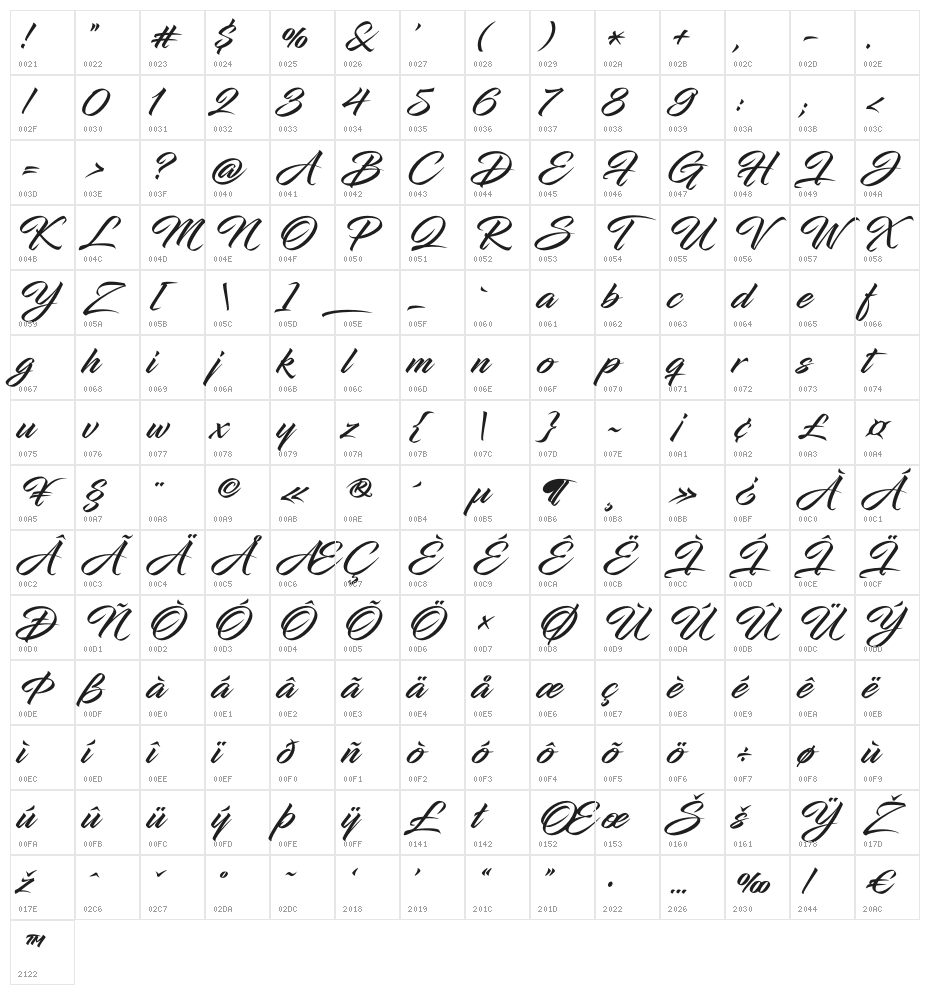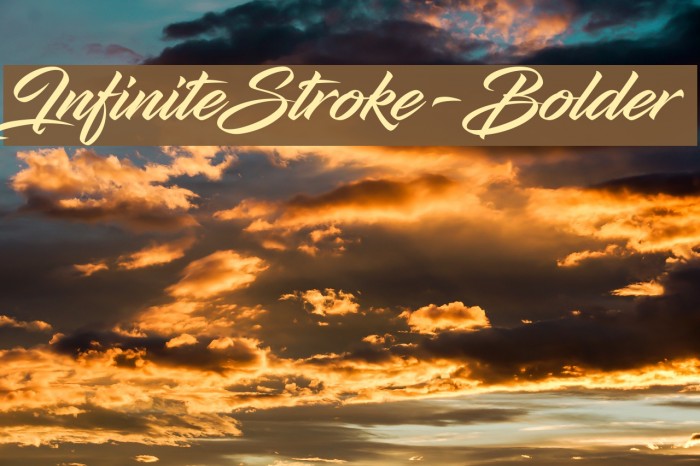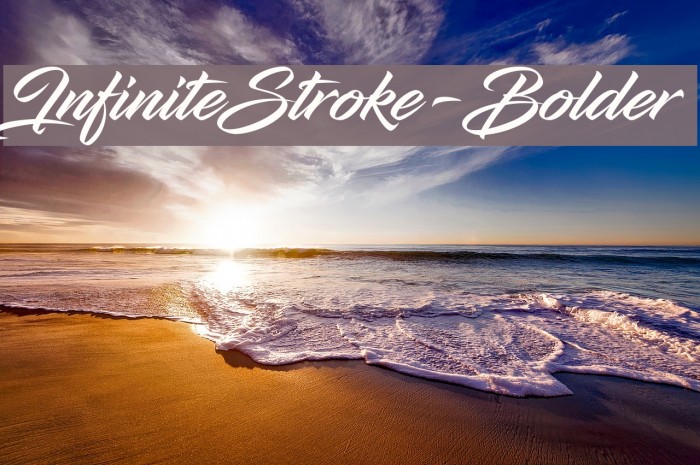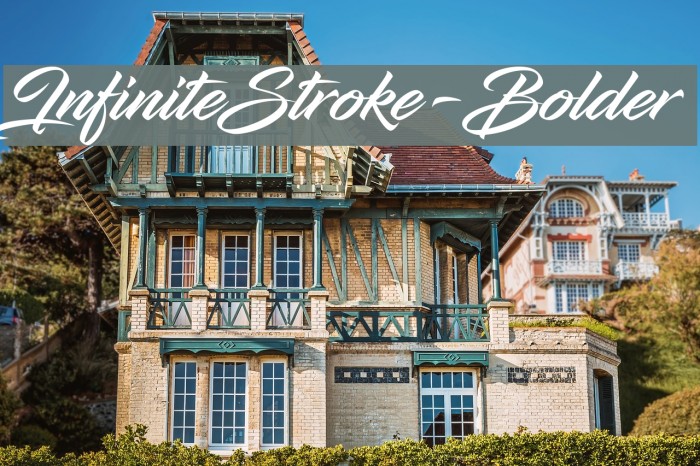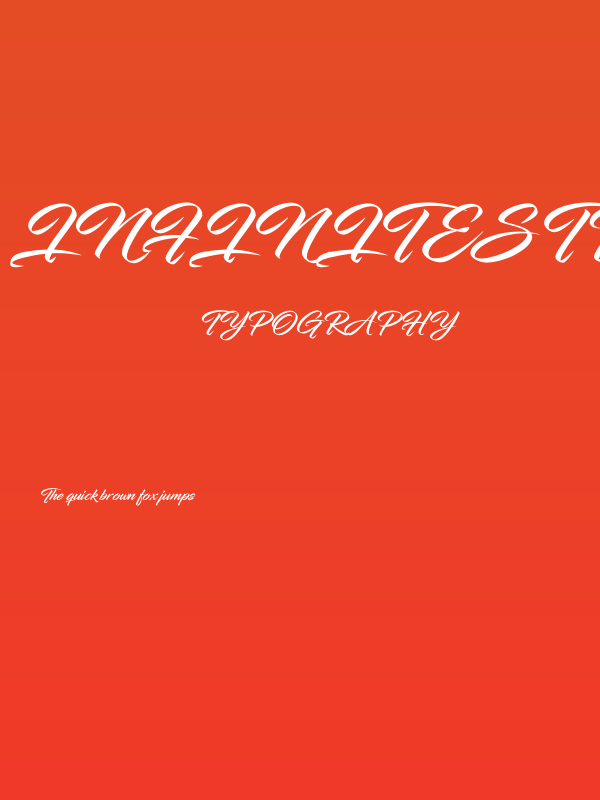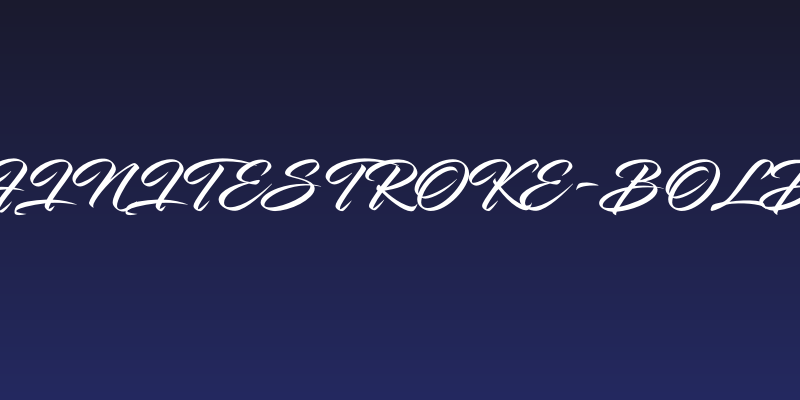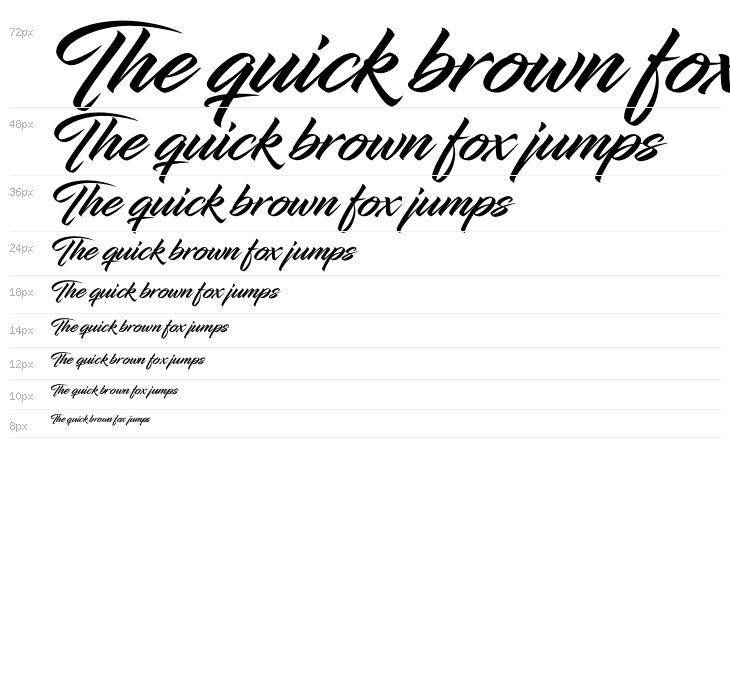
InfiniteStroke-Bolder Font
InfiniteStroke-Bolder Description
This font features a bold, flowing script style that exudes elegance and sophistication. The characters are intricately designed with smooth, continuous strokes that mimic the fluidity of handwriting. Each letter is crafted with a sense of movement, creating a dynamic and lively appearance. The uppercase letters are slightly more ornate, while the lowercase letters maintain a consistent, graceful flow. The numerals and special characters are equally well-integrated, maintaining the overall aesthetic. This font is perfect for projects that require a touch of class and personality.
| Overall Style | Elegant, Decorative |
| Proposed Projects | Ideal for wedding invitations, luxury branding, elegant signage, and personal stationery. |